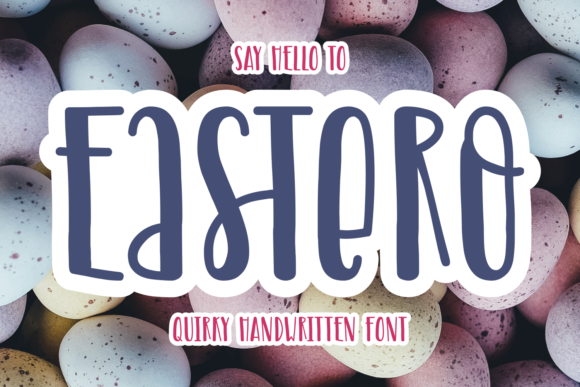
In a world of monotonous fonts, Eastero Font emerges as a radiant beacon of creativity, igniting your designs with a captivating fusion of readability, friendliness, and style. This modern display font, meticulously crafted by the visionary Dani (7NTypes), is a visual symphony that dances across your projects, leaving an indelible mark of sophistication and elegance.
Eastero Font distinguishes itself with its mesmerizing curves, each stroke flowing seamlessly into the next, creating a visual tapestry that captivates the eye. Its meticulously designed characters exude an air of warmth and approachability, inviting readers to engage with your content on a deeper level. Whether you're crafting fashion branding or editorial designs, Eastero Font becomes an integral part of your creative vision, elevating your projects to new heights of visual appeal.
Step into a realm where your words take on a life of their own, imbued with the charm and personality of Eastero Font. Its inherent readability ensures that your message is conveyed with clarity and precision, while its stylish flair adds a touch of individuality that sets your creations apart. Experience the transformative power of Eastero Font, as it breathes life into your designs, captivating audiences and leaving a lasting impression.
With Eastero Font as your creative ally, you embark on a journey of limitless possibilities. Its versatility knows no bounds, effortlessly adapting to a symphony of design styles. Whether you're designing logos, posters, flyers, or social media graphics, Eastero Font seamlessly integrates, adding a touch of brilliance that elevates your work. Embrace the transformative power of Eastero Font, allowing your creativity to flourish and your designs to shine.
As you seamlessly navigate the digital landscape, Eastero Font becomes your trusted companion, transforming your online presence into a captivating visual masterpiece. Its captivating curves and stylish flair blend seamlessly with the digital realm, ensuring that your website, blog, or social media channels radiate a captivating aura that draws visitors in and keeps them engaged. Experience the magic of Eastero Font, as it weaves its visual enchantment across the digital tapestry, leaving a trail of admiration in its wake.